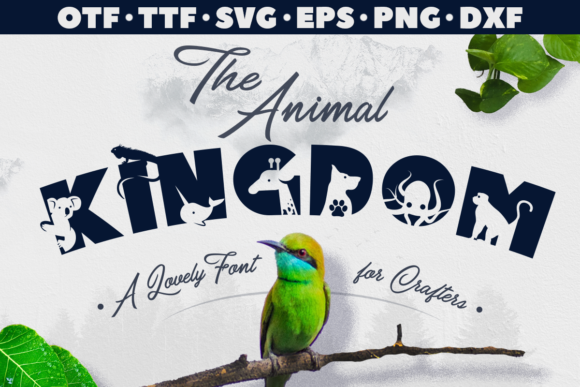
Embark on a whimsical journey into the heart of nature with The Animal Kingdom Font, a display font family that captures the untamed spirit of the wild. Created by the visionary Anastasia Feya, this font breathes life into the beauty and wonder of the animal kingdom.
Immerse yourself in a world where charismatic creatures and enchanting landscapes come alive in every letterform. The Animal Kingdom Font is not just a collection of characters; it is a celebration of nature's diversity, inviting you to add a touch of wild charm to your creative endeavors.
With The Animal Kingdom Font, your words will dance with the grace of a gazelle, soar with the eagles, and roar with the strength of a lion. It's the perfect font for school projects, nature-themed invitations, children's books, and any project yearning for a burst of playful charm.
Step into the realm of imagination, where letters transform into playful creatures, inviting young minds to explore the wonders of reading. Engage children with the captivating allure of The Animal Kingdom Font, making learning an enchanting experience they'll cherish.
Indulge your creative spirit and unleash the boundless possibilities of The Animal Kingdom Font. Let your imagination run wild as you create designs that resonate with the vibrant energy of nature, captivating your audience with every stroke.
Don't settle for ordinary fonts. Embrace the extraordinary with The Animal Kingdom Font, where every letter is a testament to nature's artistry. Explore the depths of your creativity and leave an enduring impression on your audience.